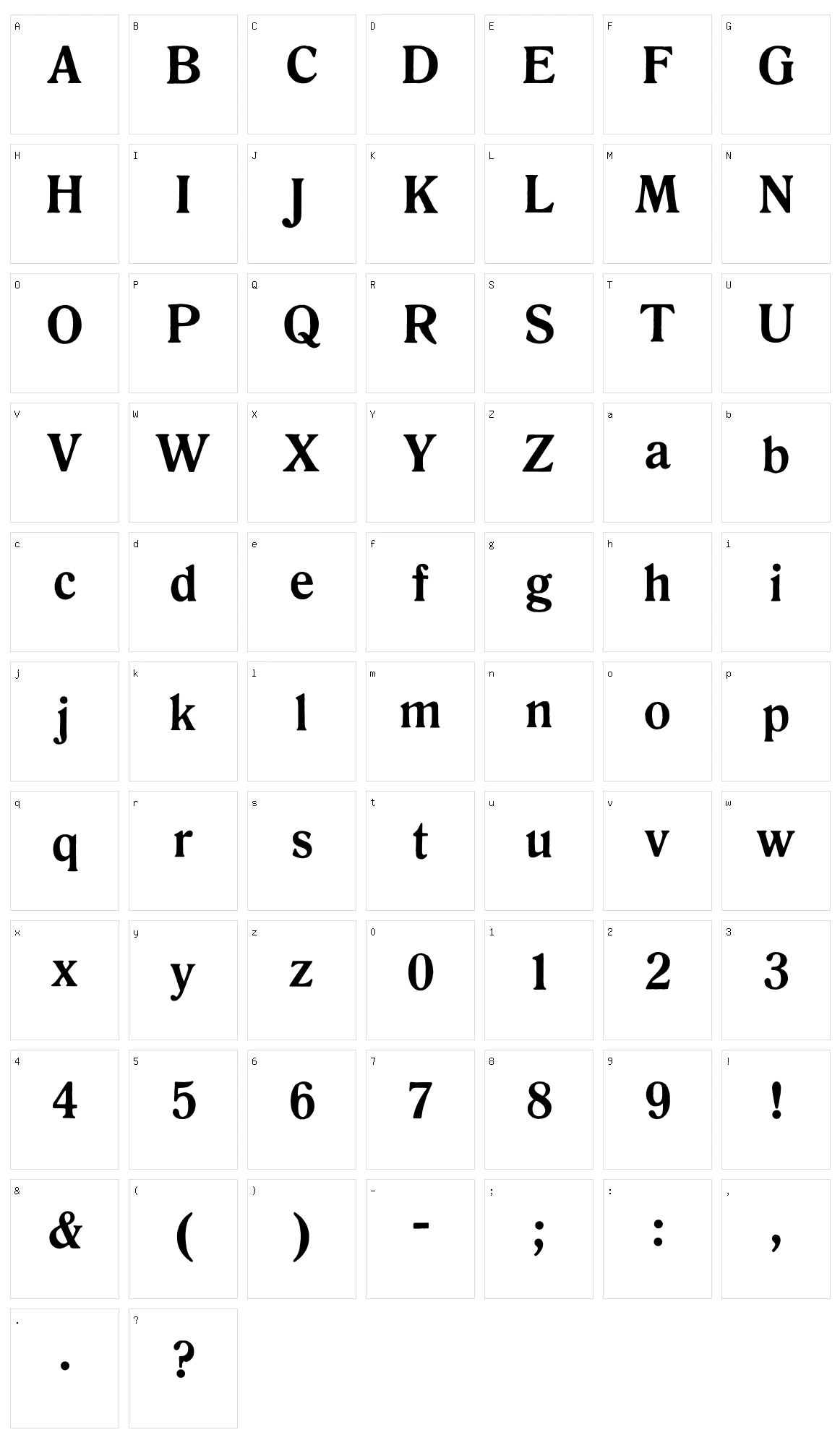
The free font Romaansch is carefully designed by Michael Hennessey, showcasing a thoughtful balance of creativity and usability and falls under the Serif font style. When you download the ZIP file, it contains only 357 KB of font files, making it lightweight and quick to download. Please review the license details below to understand permitted usage and distribution rights. If license information is not available, we recommend using this font for personal projects only or contacting the author directly for commercial usage permissions.